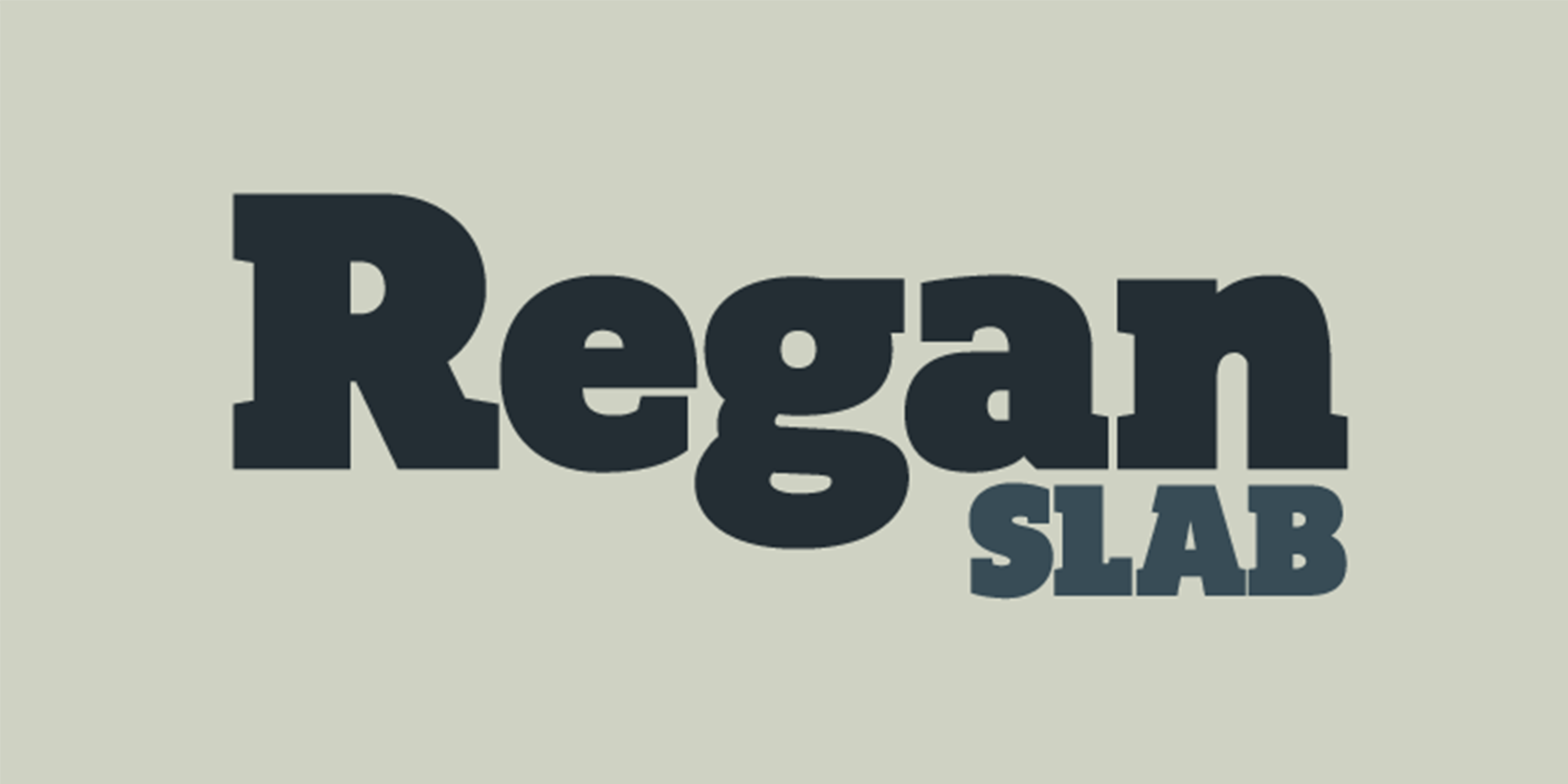
Regan Slab Font Free Download is a bold slab-serif typeface that combines sturdy structure with timeless elegance. Please note: you must purchase a license for commercial use — this font is available as a free download strictly for personal and testing purposes.
Perfect for headlines, branding, posters, editorial design, and packaging, Regan Slab Font Free Download offers strong visual impact and clear readability.
What makes this font exciting is its thick, block-like serifs paired with balanced proportions, giving your designs a confident and authoritative voice.
The Regan Slab font family includes Regular, Bold, Italic, and Bold Italic styles, allowing designers to create versatile and expressive typographic layouts.